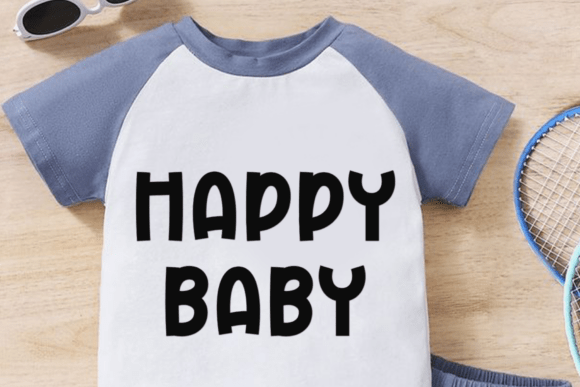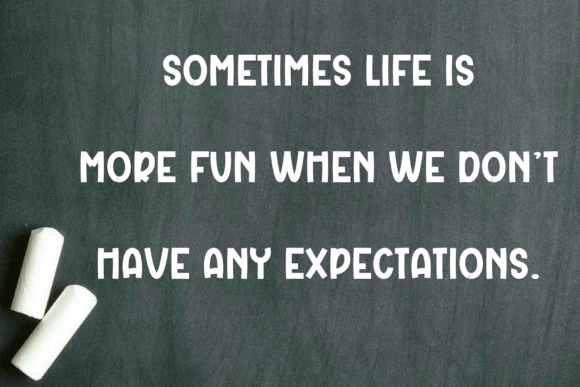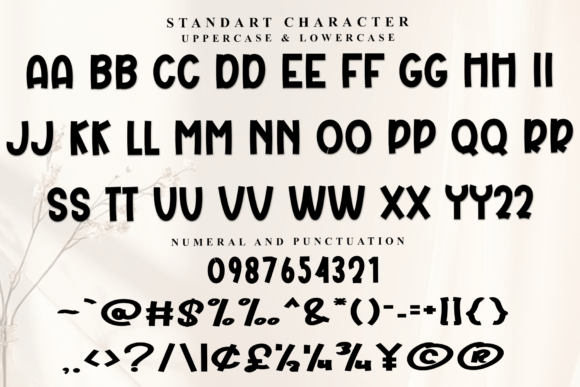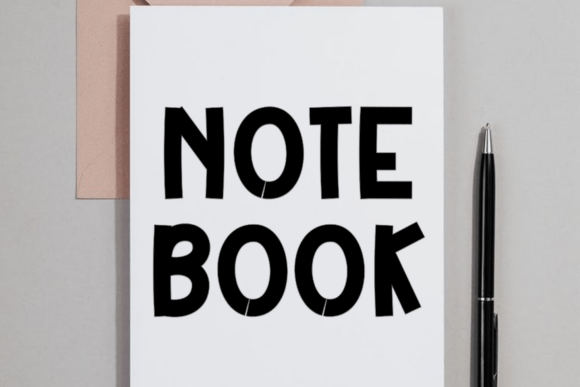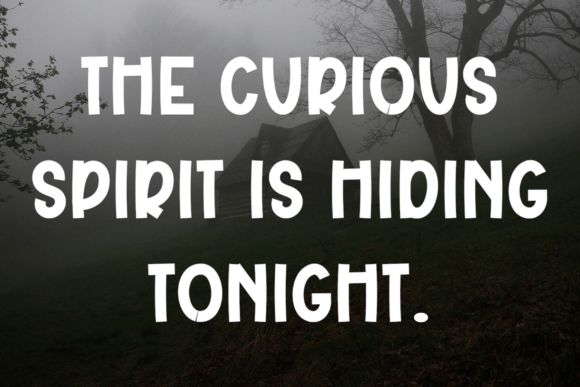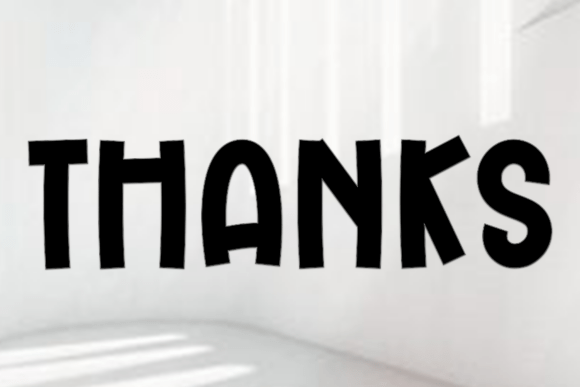
Discover the Magic of Typography: The Best Mocca Font
Have you ever found yourself staring at a blank page, waiting for inspiration to strike? That’s where I was, searching for the perfect font to elevate my design project. As a designer, I know how crucial the right typography can be in making a piece truly special. And then, I stumbled upon the Best Mocca Font – a beautiful and eye-catching design that stole my heart.
This charming font, with its soft and unique touch, is a game-changer for designers and creatives alike. Its distinctive strokes give it a special character that makes it stand out from the crowd. The Best Mocca Font is perfect for a wide range of projects, from design to crafts and beyond, making it a valuable addition to any creative toolbox.
Best Mocca Font Key Features
- Unique Characteristics: The Best Mocca Font features a unique, hand-drawn design with subtle imperfections, giving it a warm and inviting feel.
- Font Style: The font comes in three styles: Regular, Italic, and Bold, allowing for a range of design expressions.
Best Mocca Font Review
At first glance, the Best Mocca Font seems like a stylish addition to any project. ✨ The rounded edges and playful feel make it perfect for branding and advertising materials. ✨ The font also has a good balance of elegance and friendliness, making it suitable for a wide range of audiences.
However, upon closer inspection, I’ve noticed a few limitations. ⚠️ For one, the font can be a bit too bold at times, making it difficult to read in certain contexts. ⚠️ Additionally, the font’s consistency can be a bit off, with some letters looking slightly uneven.
Here are some specific areas where the Best Mocca Font shines:
- Excellent for headings and titles
- Works well in print materials
- Easy to customize and adjust to different sizes
Overall, I’d give the Best Mocca Font 3.5 out of 5 stars. While it has its strengths, it falls short in terms of consistency and readability. If you’re looking for a bold and eye-catching font, the Best Mocca Font might be a good choice. However, if you prioritize readability and consistency, you might want to consider other options.
The Best Mocca font is ideal for:
- Coffee shop menus and branding
- Food and beverage labels